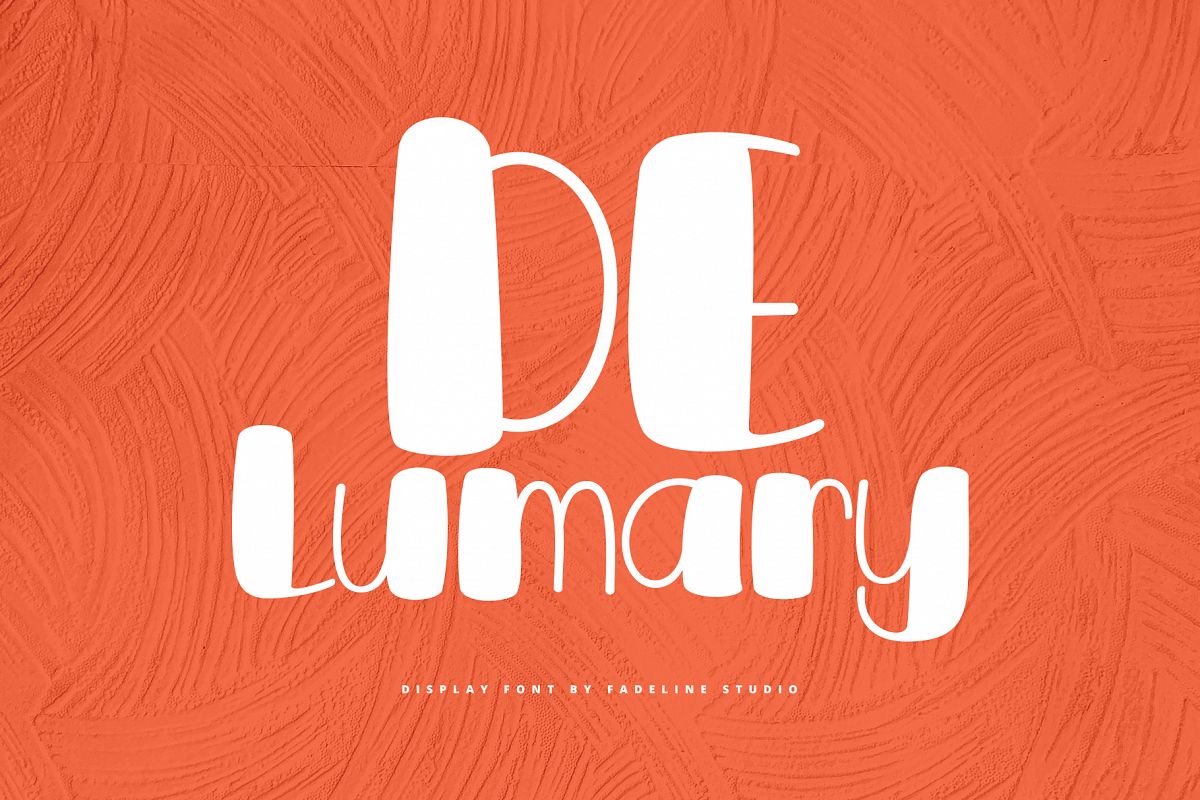
DeLumary
DeLumary is a new unique and funny display font. This font adopts a bold, cute, firm, and trendy style. Very suitable to meet your various design needs that are trending now.
With a style like this, this font will be suitable in use for comic, logo's, branding projects, homeware designs, product packaging, mugs, quotes, posters, shopping bags, logo's, t-shirts, book covers, name card, invitation cards, greeting cards, and all your other lovely projects.
You can use this font for your job very easily. Because there are many features in it. Contains the complete set of lower and uppercase letters, punctuation, numbers, web fonts, and multilingual support. This font also includes several ligatures and alternative style Stylistic Set For those of you who have software that is capable of working OpenType (Corel Draw / Photoshop / Illustrator / InDesign).